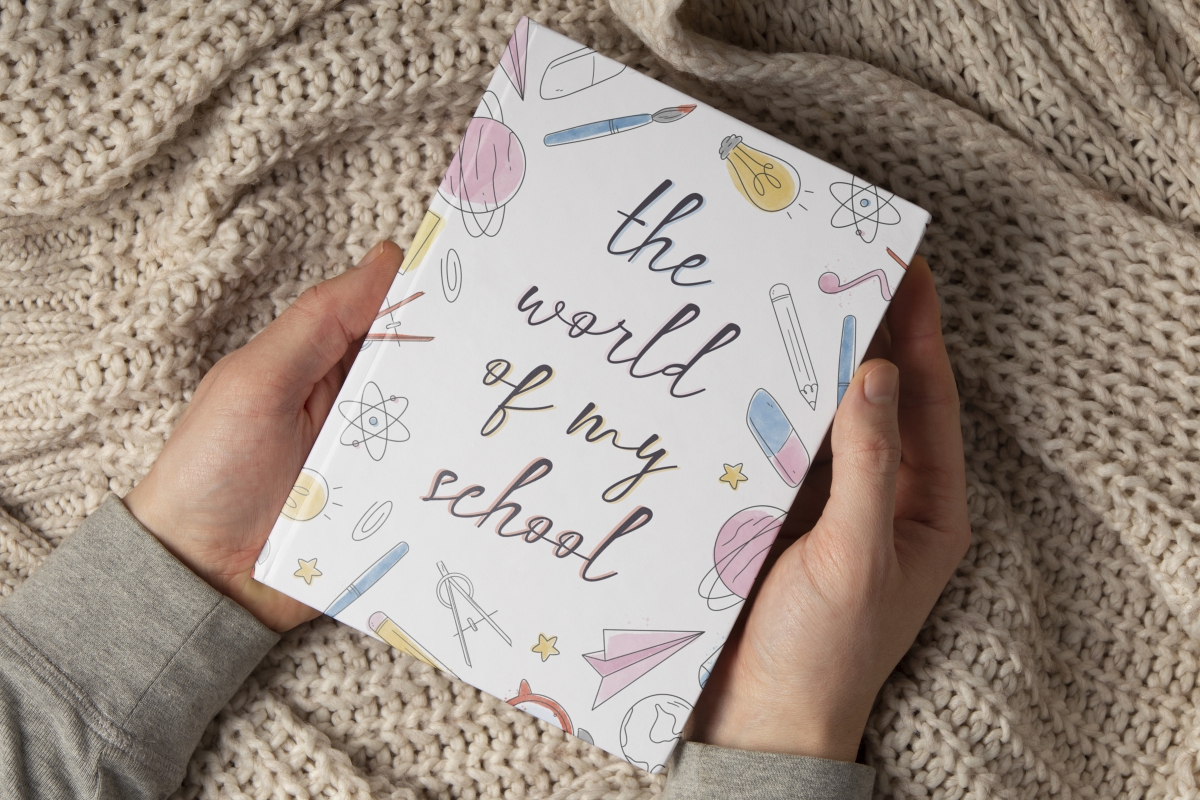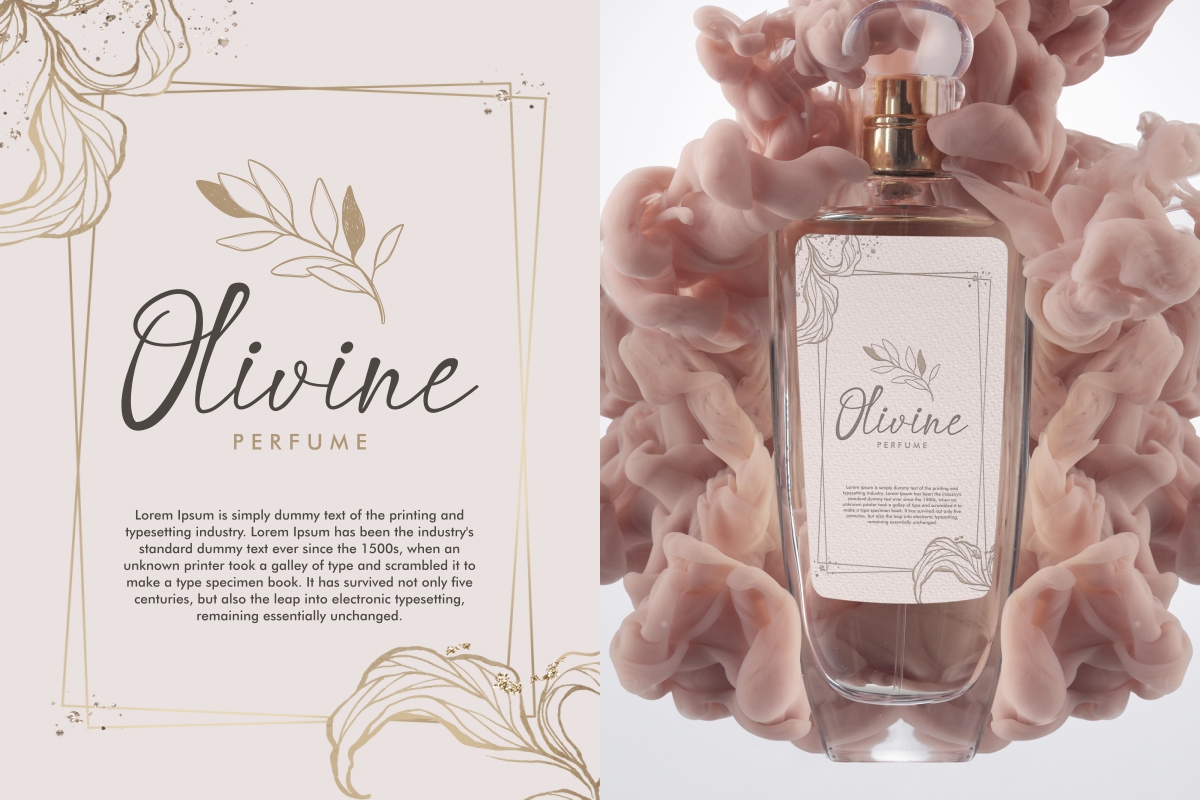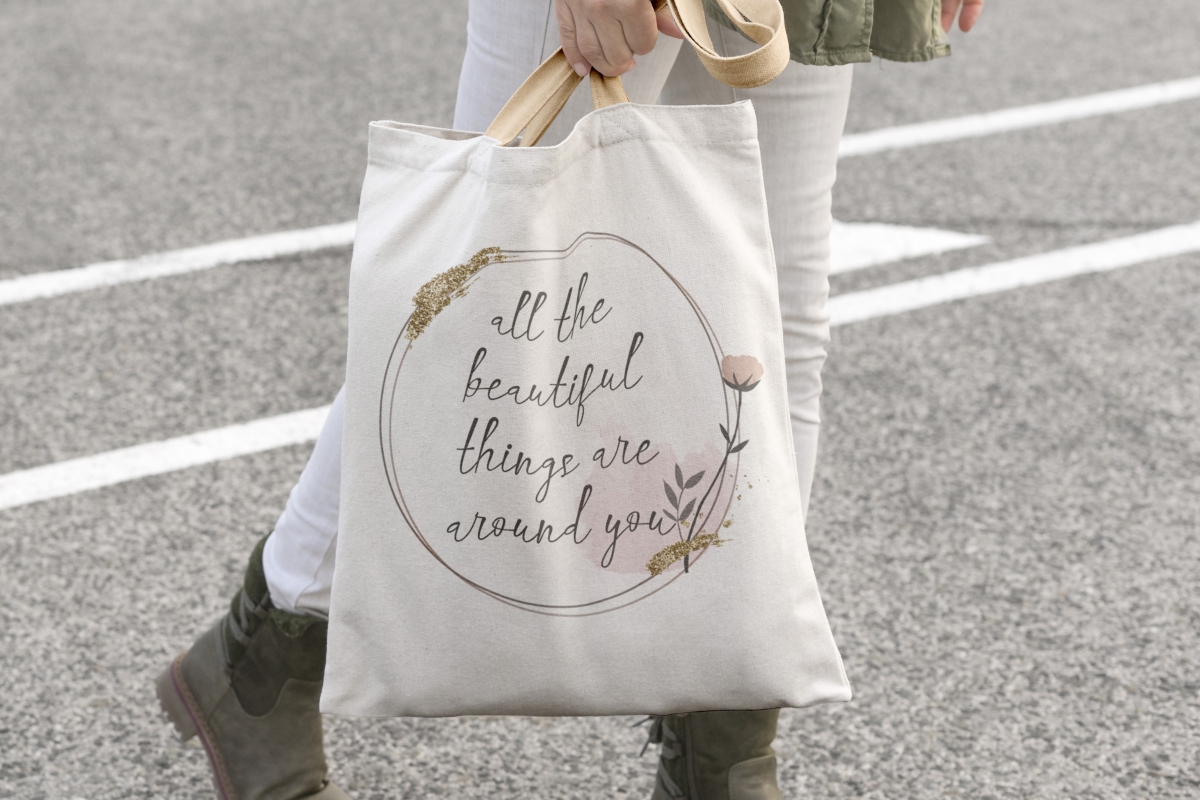
Studyhack Font
Studyhack Handwritten Font is a casual ink pen calligraphy font with simple lines and balanced thickness. So that it brings elegance and timeless in your designs. This font will complement your creative projects, such as: billboard, cover, label, packaging design, invitation, business card, title, watermark, etc.